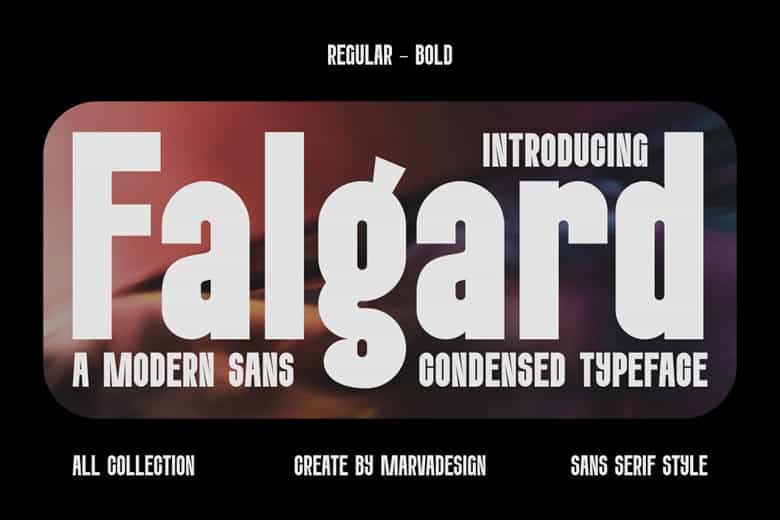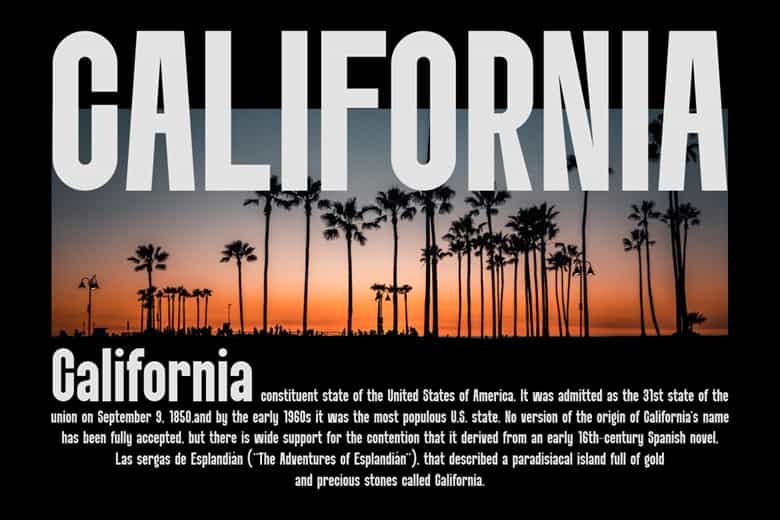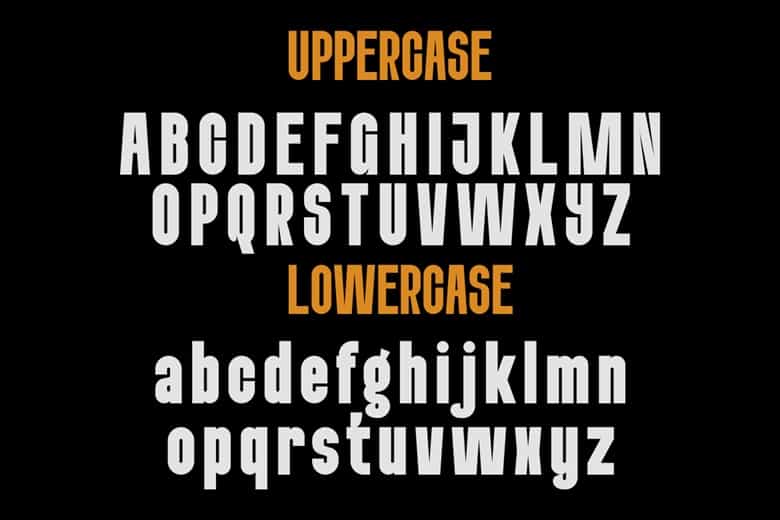
Falgard is a modern bold sans serif typeface that can be described as rather aggressive and muscular. In any case, this font will be useful in any collection of fonts, as it can be successfully used to enhance any design. Great for headlines and logos and any other work where a modern and minimalist appearance is required.